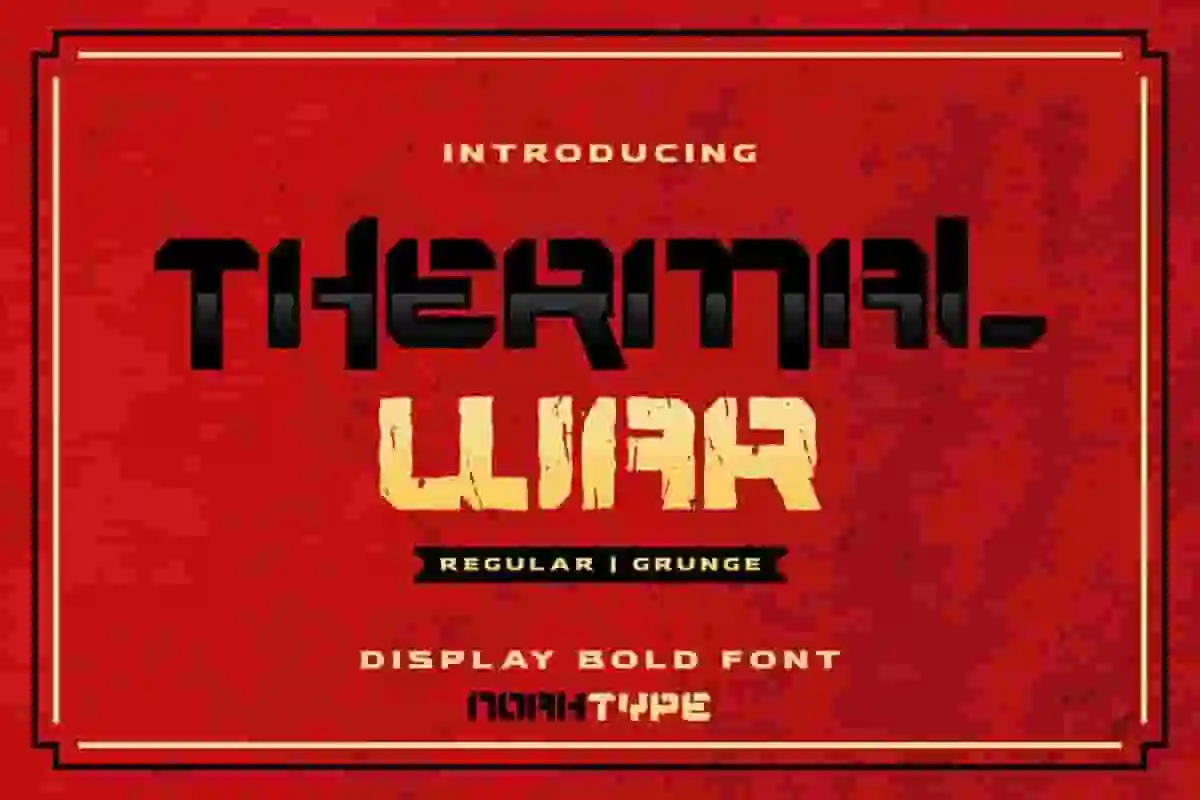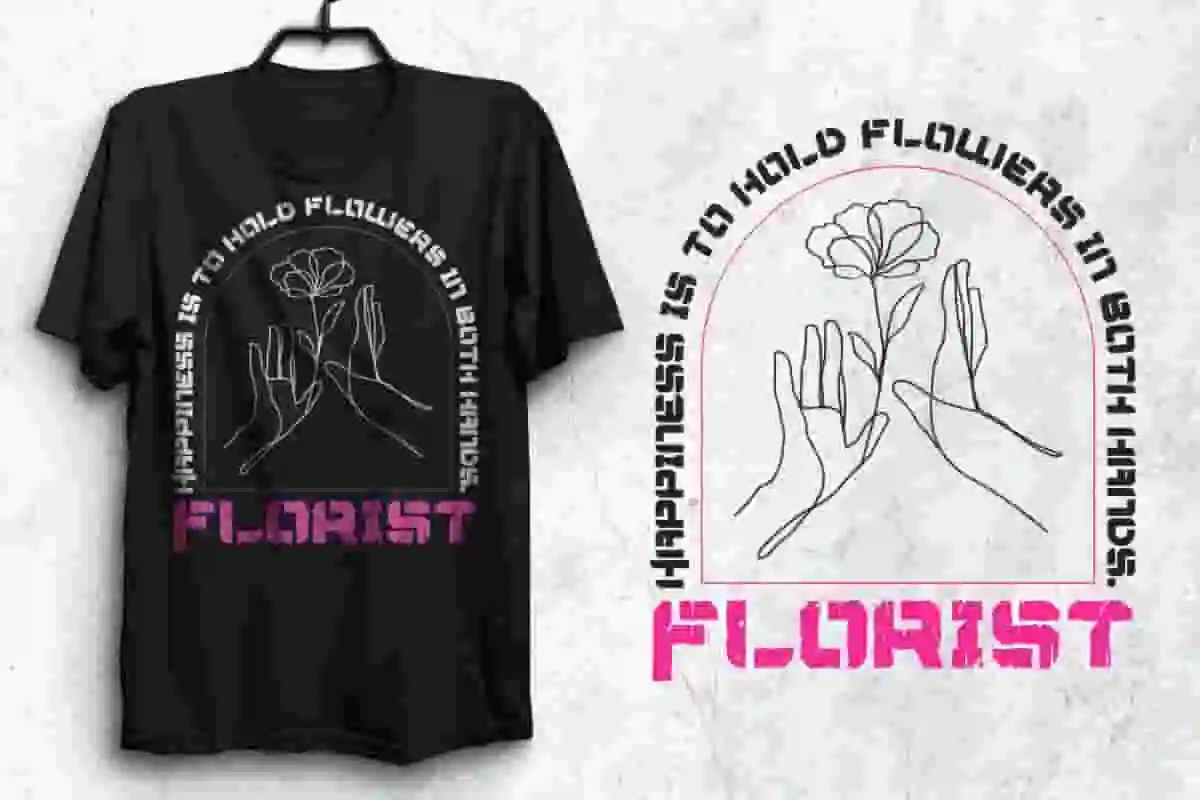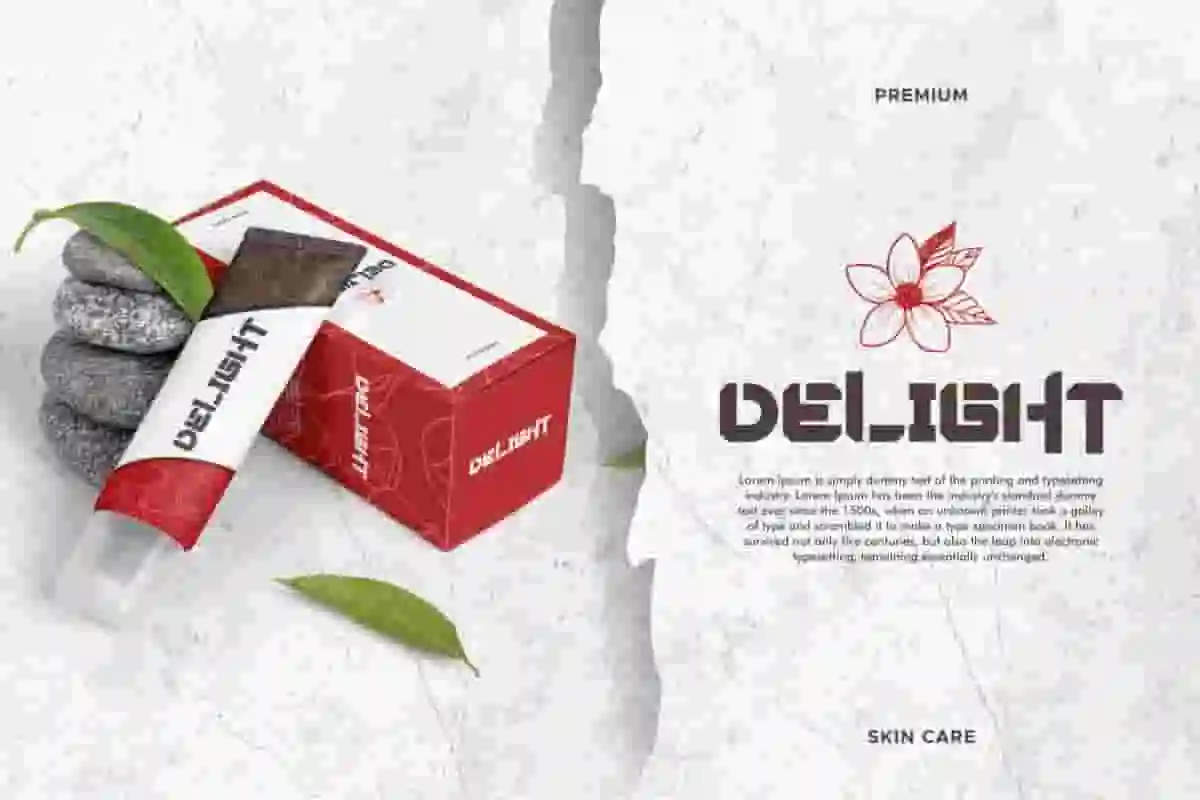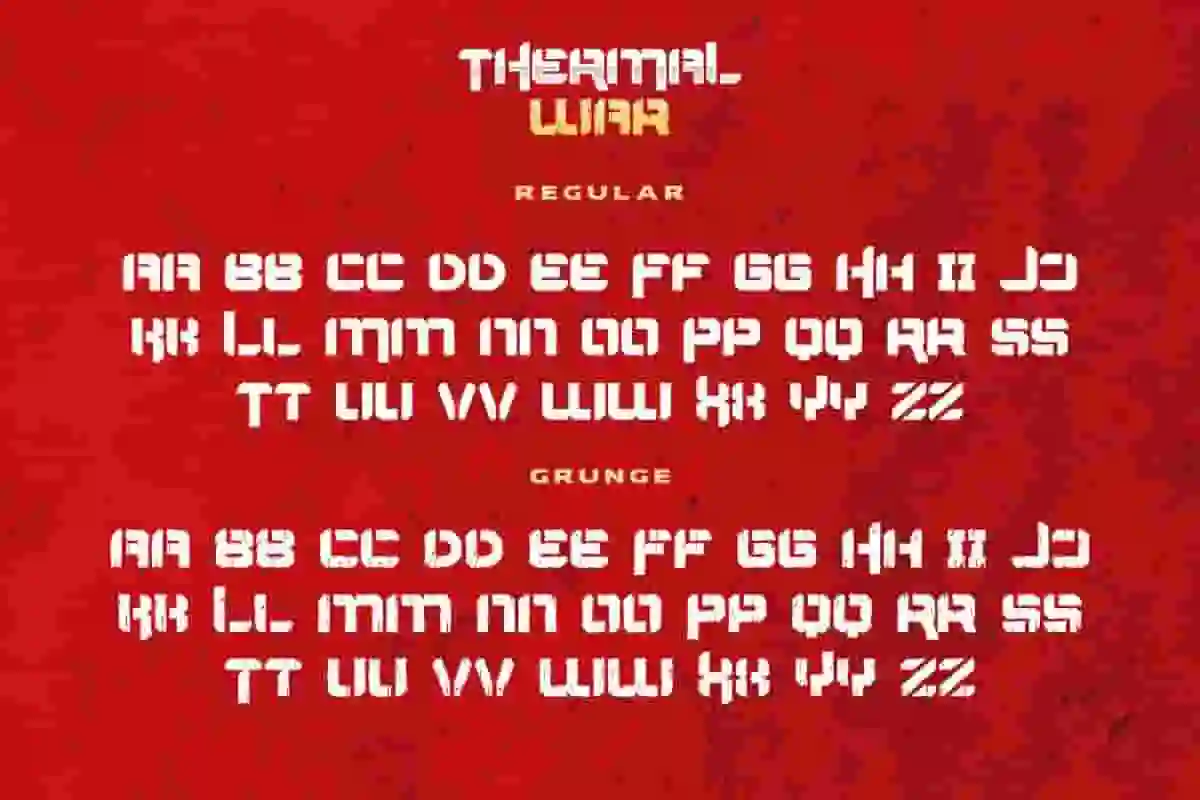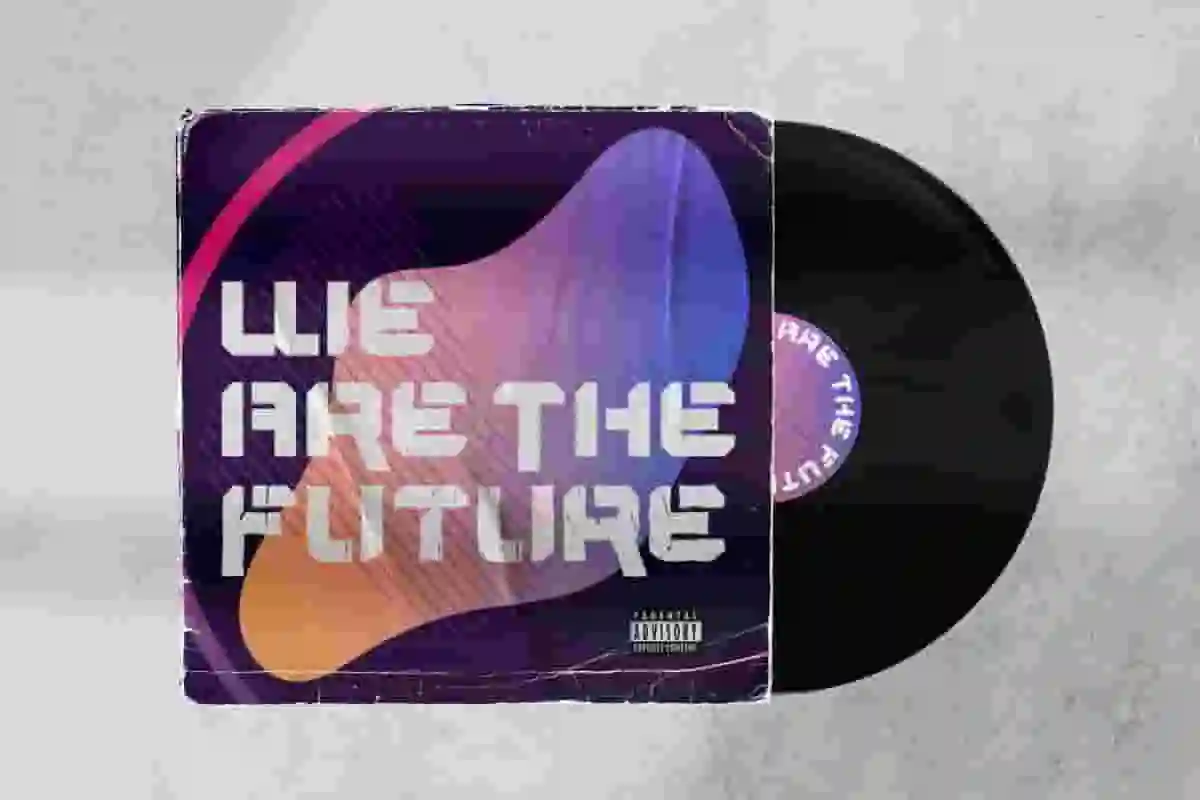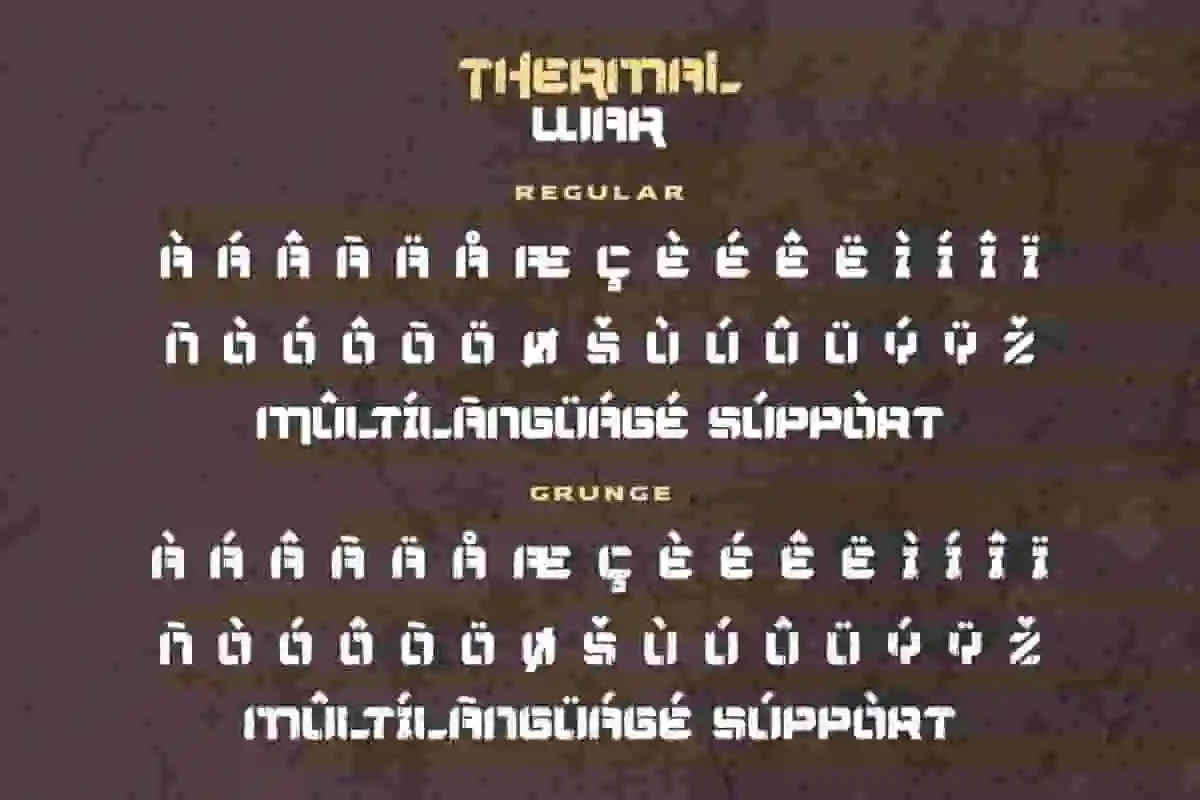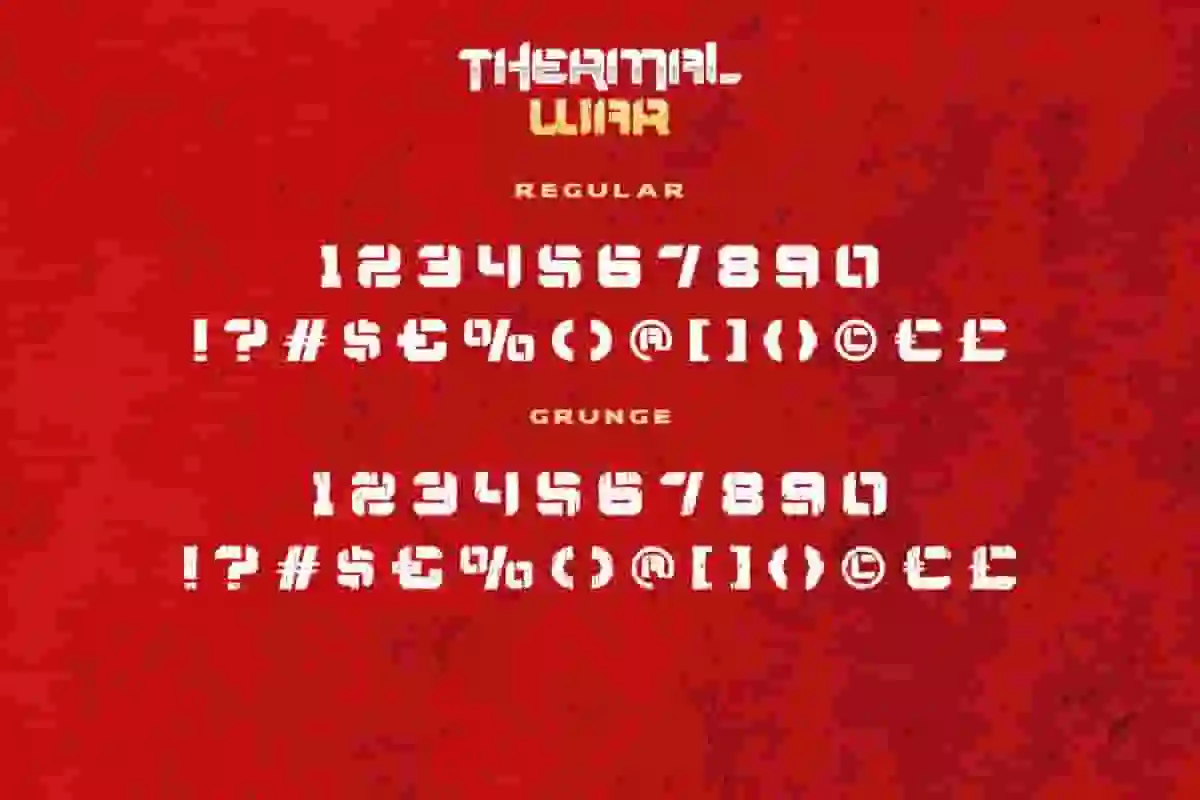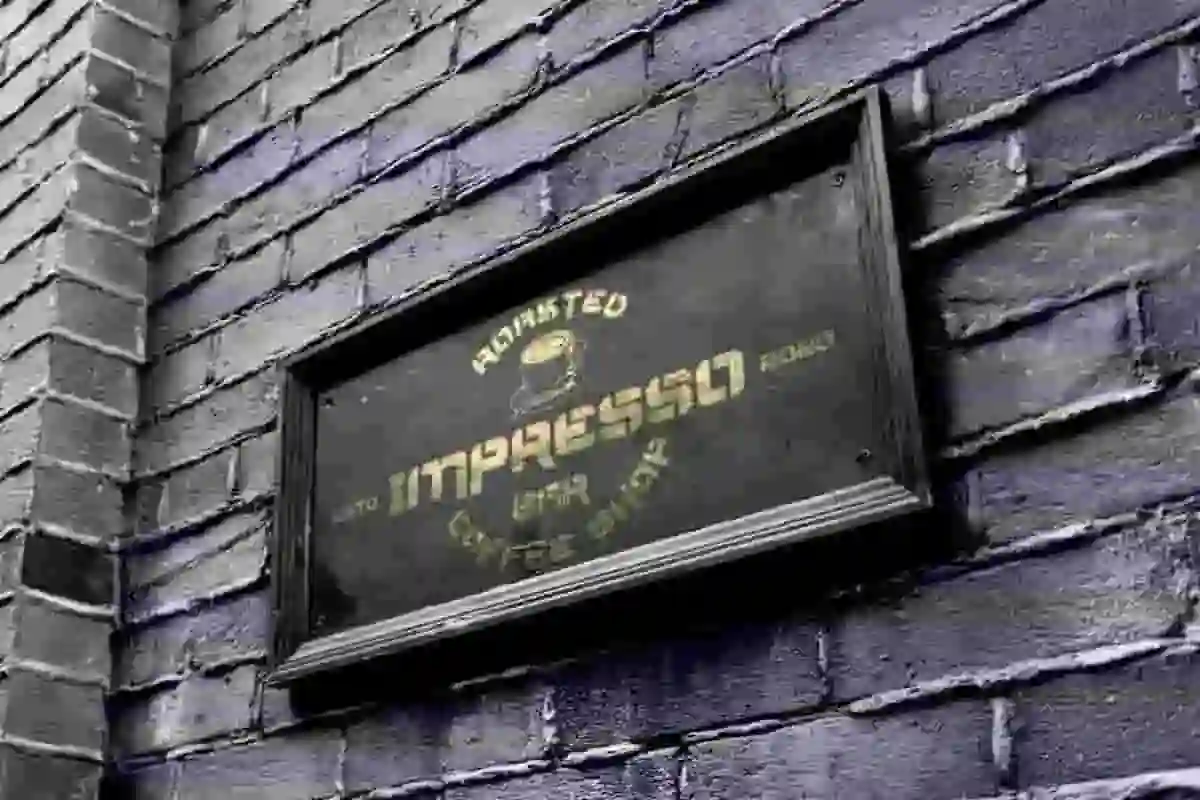
Thermal War Font is a gaming display font with two special style. Bold and thick lettered display font combined with the same type but with the addition of a grunge effect on the character. It will look stunning on any digital product, product packaging . Use this font for your designs and explore its endless possibilities.
Thermal War Font includes ALL CAPS Basic Characters, Numerals and Punctuation. This fantastic font is best suited for title of all sizes, as well as for blocks of text that have both maximum and minimum variations. Whether it’s for products design, signage or anything else